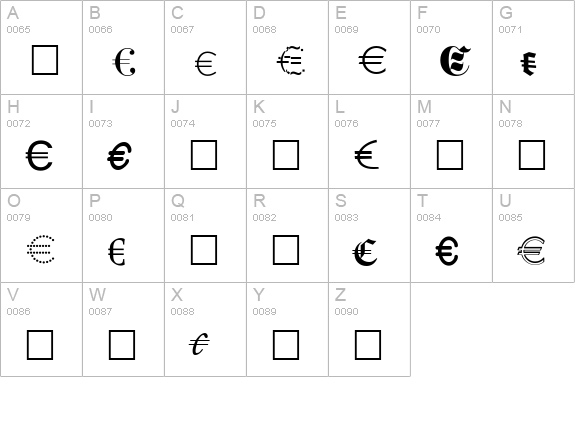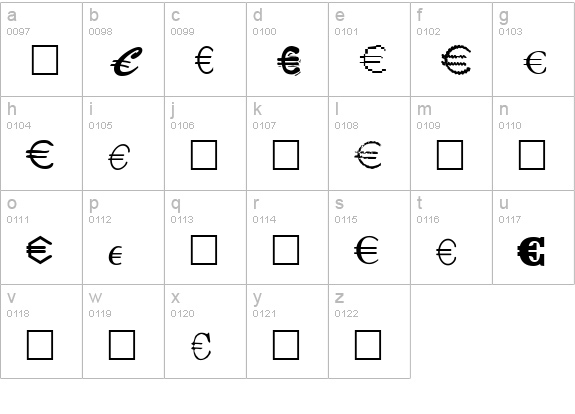
Euro Collection Font Details
Euro Collection font is a versatile and stylish typeface that exudes elegance and sophistication. With its clean lines and modern design, this font is perfect for a wide range of projects, from branding to editorial design. The Euro Collection font is available for free download at FontsMarket.com, making it easily accessible for designers and creatives looking to add a touch of European flair to their work. Whether you're creating a logo, poster, or website design, the Euro Collection font is sure to elevate your project to the next level with its timeless appeal and sleek aesthetic.